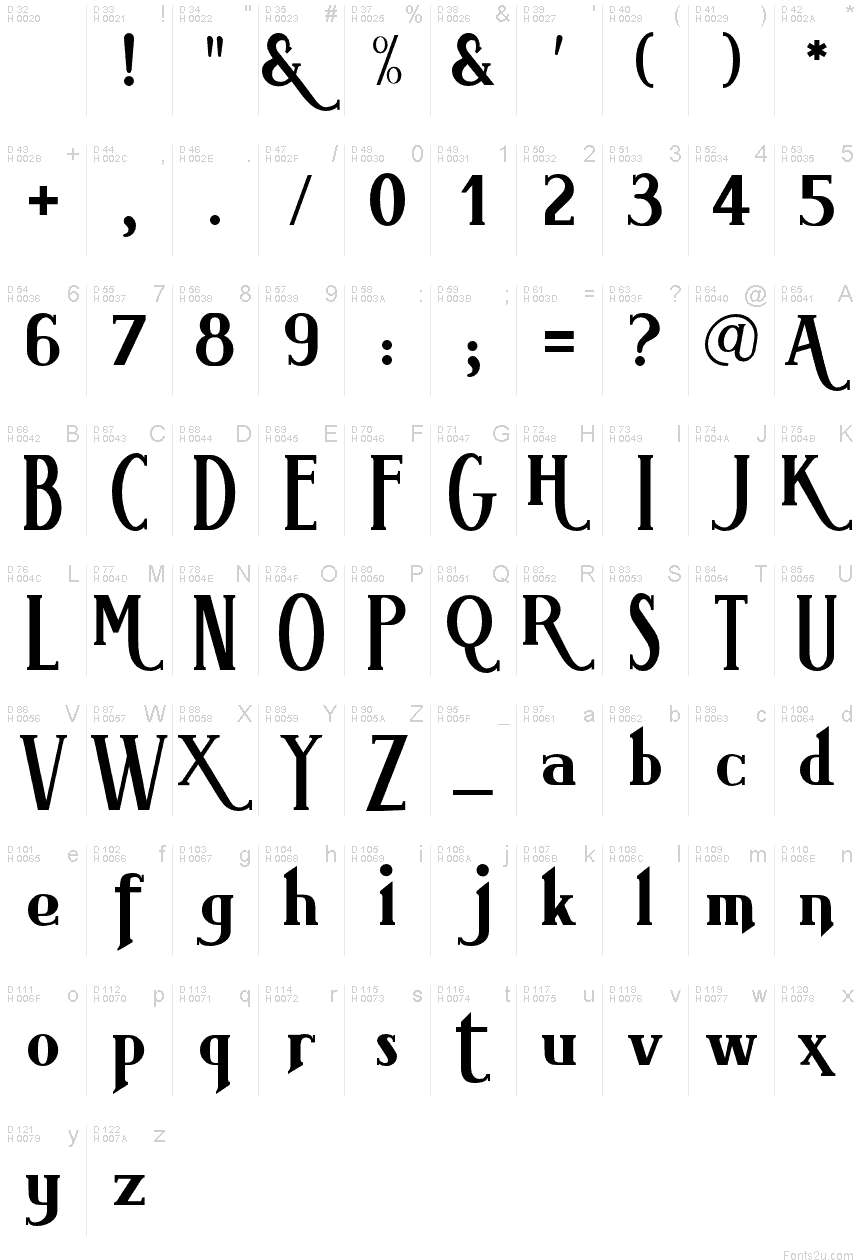
BrimborionAlter
BrimborionAlter is a free decorative display font with towering, high-contrast letters and a deliberately unruly silhouette. Long curves plunge below the main letter shapes, turning familiar forms into loops, hooks, and sharp tails. The effect is theatrical and strange.
Its fashion-forward proportions suit magazine covers and boutique branding, but the exaggerated extensions also belong on experimental music posters and performance graphics. Across those settings, the mix of elegant serif structure and distorted anatomy points toward avant-garde fashion, cabaret, and surreal stage design.